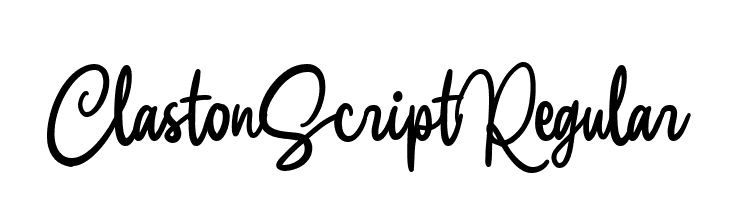
A flowing, cursive script font with elegant, smooth curves.
A flowing, elegant script font with a handwritten appearance.
A dynamic, handwritten script font with fluid, expressive strokes.
A casual handwritten font with smooth, flowing strokes.
A playful handwritten font with smooth, flowing lines and dynamic letterforms.
A dynamic, expressive script font with fluid, cursive strokes and elegant flourishes.
A playful, handwritten font with a whimsical and informal style.